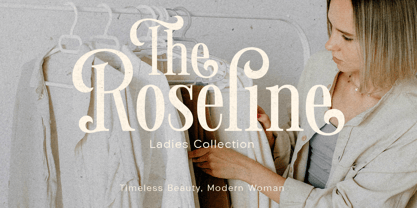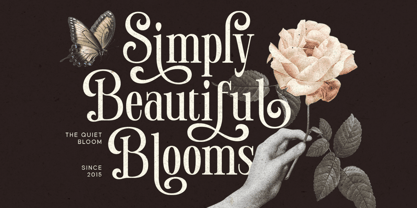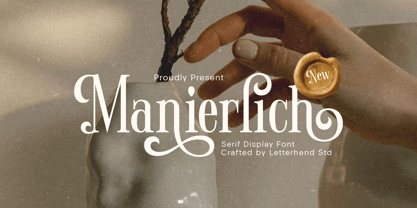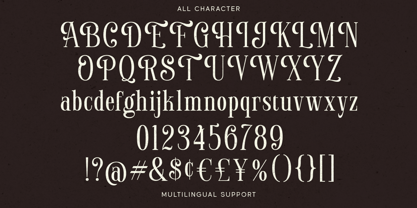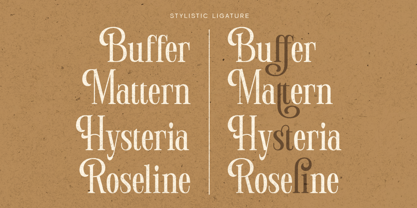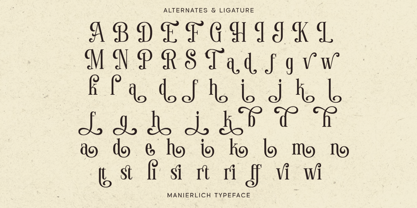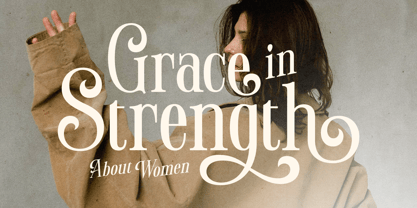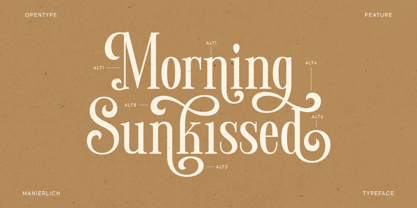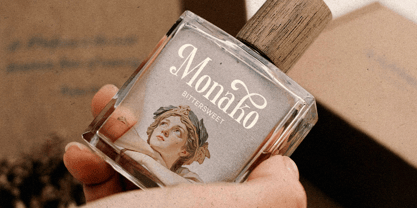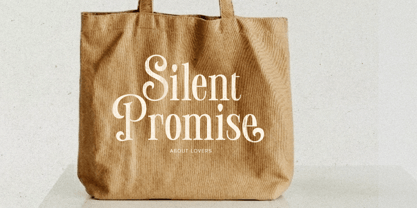
Manierlich
por Letterhend
La familia tipográfica Manierlich fue diseñada por Hendry Juanda y publicada por Letterhend. Manierlich contiene 1 estilos. Más información sobre esta familia
Manierlich is an elegant serif display font designed for refined visuals and timeless typography. inspired by classic typography and editorial lettering, it features graceful curves, decorative details, and balanced proportions that create a calm yet sophisticated presence. the overall look feels artistic, vintage-inspired, and carefully crafted, making it ideal for high-end visual identity systems. Features : Uppercase & lowercase Numbers and punctuation Alternates & Ligatures Multilingual Support PUA encoded